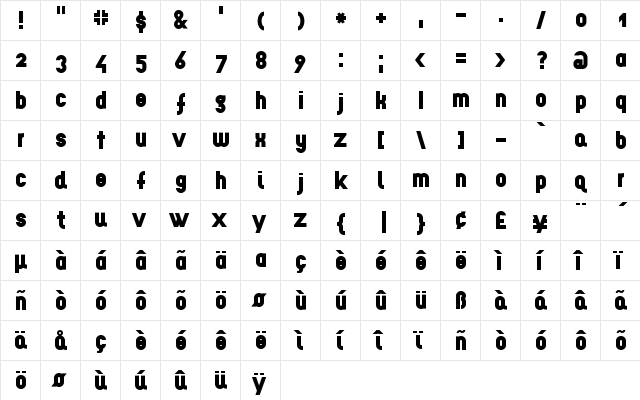
EPF LCB
Design Context for EPF Typeface
EPF is a composed and adaptable typeface that performs quietly and consistently across a wide range of design contexts.